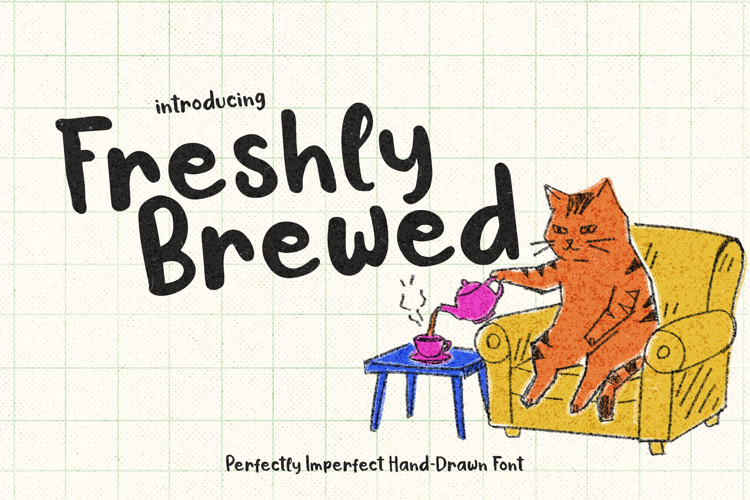
Bring the warmth of a cozy morning and the carefree joy of childhood to your designs with Freshly Brewed! This charming handwritten brush font perfectly captures the raw, innocent penmanship of an 8-year-old child, combined with the rich, textured strokes of a real brush pen.
Every character is carefully crafted to look perfectly imperfect, honest, and packed with playful energy. Its authentic textured edges and bouncy baseline make it look like it was written directly onto the page, giving your projects an instant human touch and organic vibe.